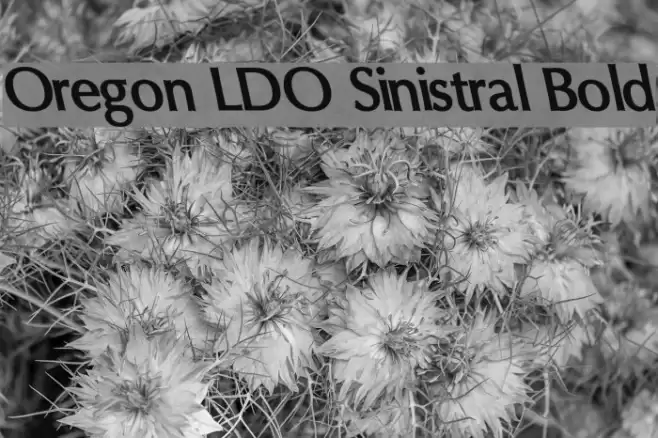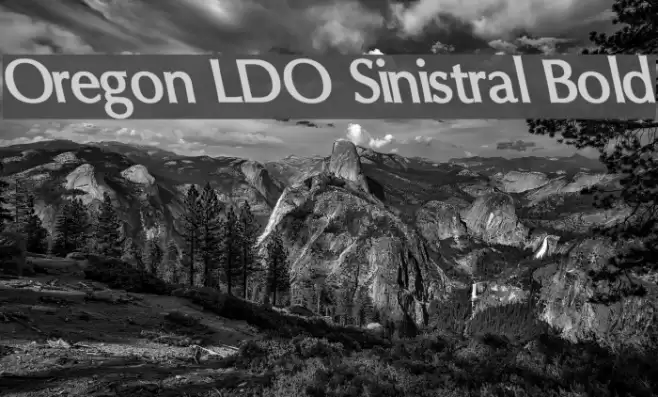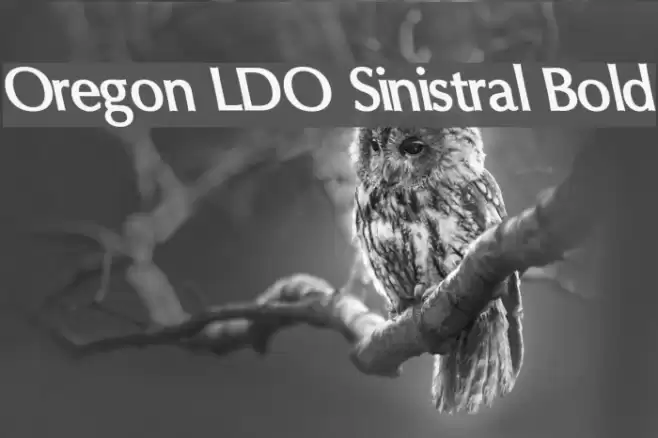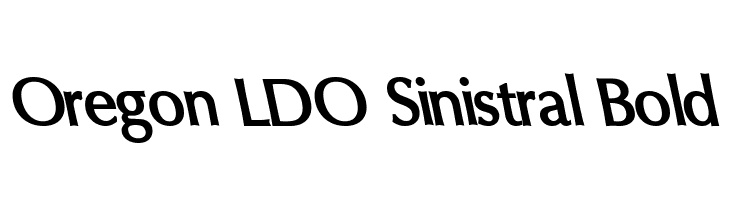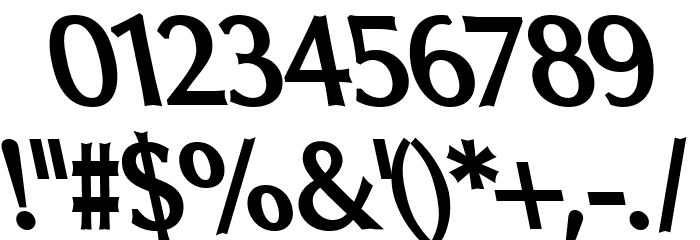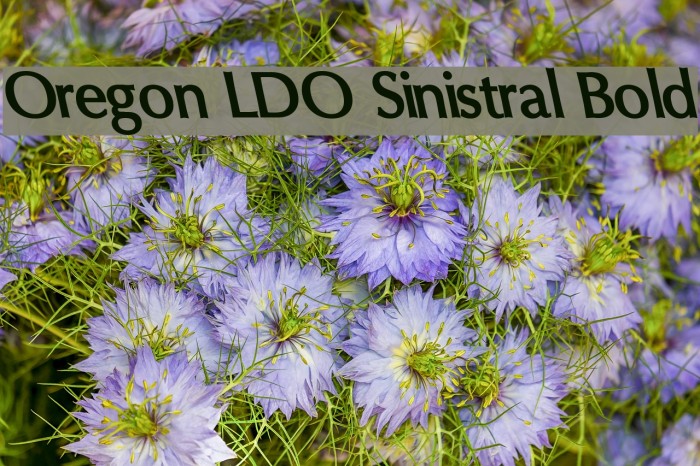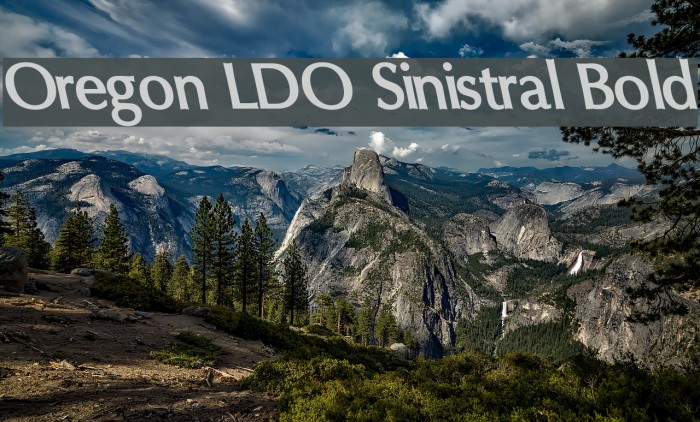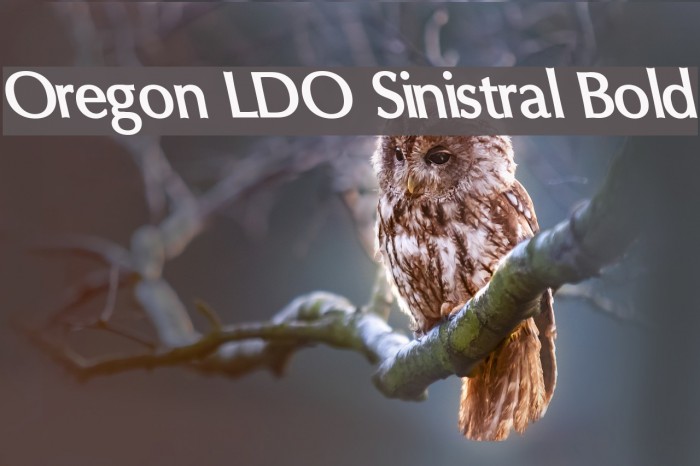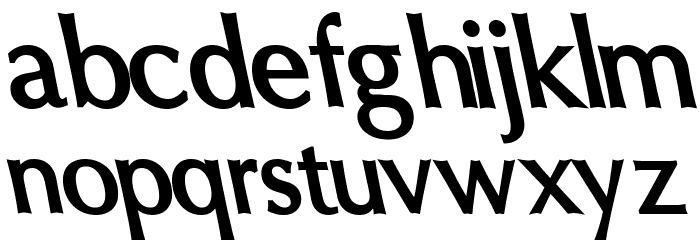
Oregon LDO Sinistral Bold Font
Oregon LDO Sinistral Bold Description
This font features a bold and dynamic style with a slight slant, giving it a sense of movement and energy. The uppercase letters are strong and assertive, while the lowercase letters maintain a consistent weight and balance. The numerals are clear and easy to read, making them suitable for various applications. The special characters are well-integrated, maintaining the overall aesthetic of the font. The design is modern and versatile, suitable for both digital and print media. Its boldness and slight italicization make it stand out, while the clean lines ensure readability.
A bold, slightly slanted font with a modern and dynamic style from Uncategorized fonts.
- Proposed Projects: Ideal for branding, advertising, headlines, and digital media projects that require a bold and modern look.
- Use Case: Headlines, Logos, Advertising